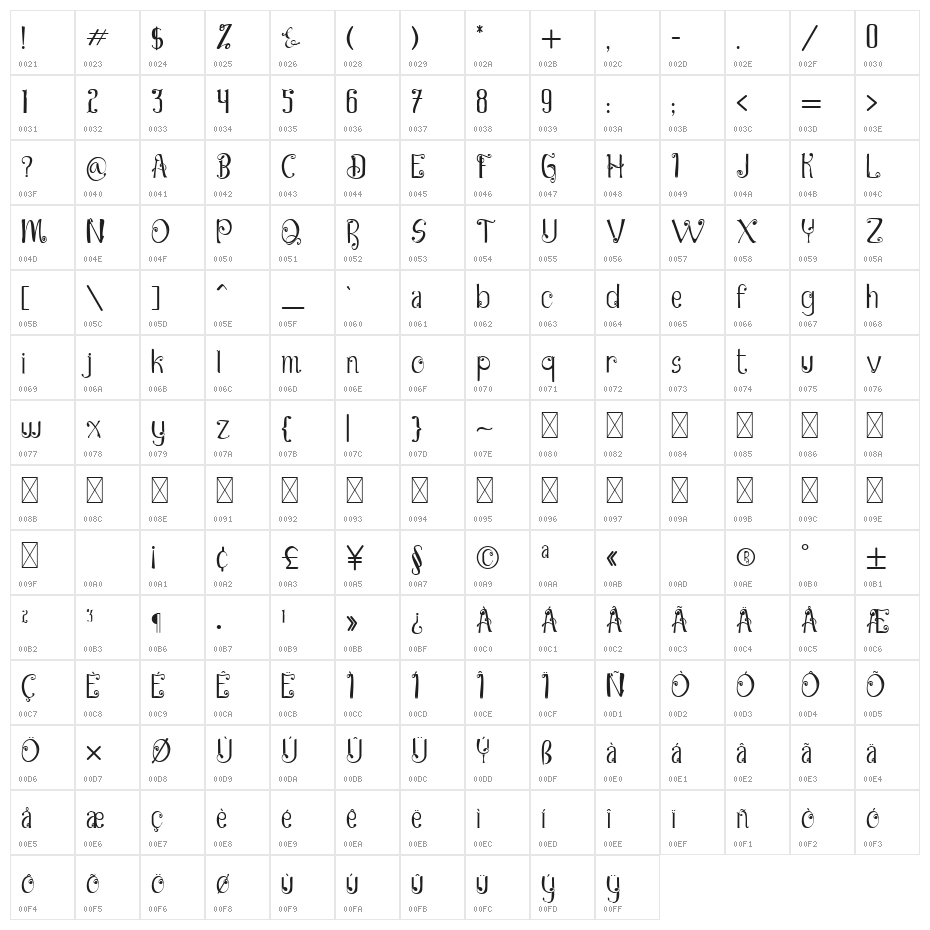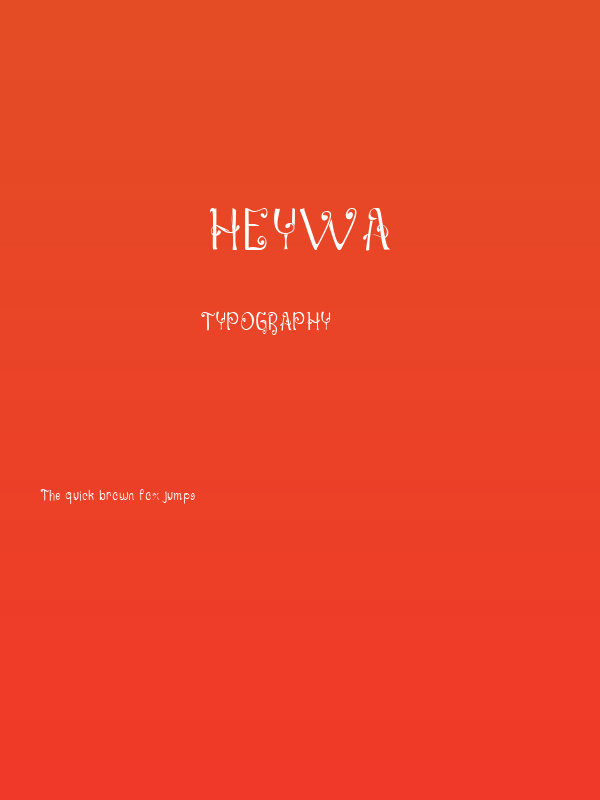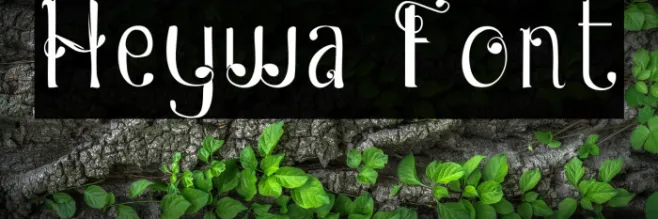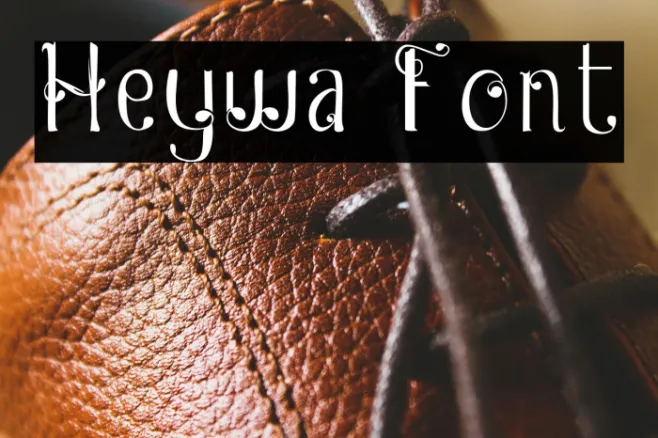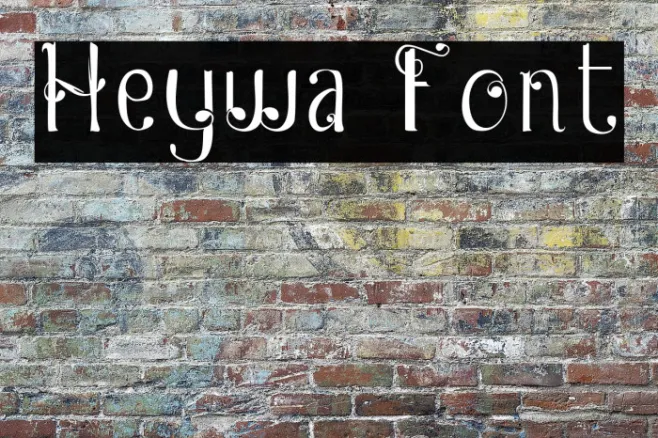
Heywa Font
Heywa Description
This font is a decorative and whimsical typeface that features elegant swirls and curls on many of its characters, giving it a playful and artistic flair. The uppercase letters are particularly ornate, with each character having unique embellishments that add to its charm. The lowercase letters maintain a more subtle style, yet still carry the decorative theme with slight curls and extended strokes. The numerals are bold and distinct, incorporating similar decorative elements that ensure consistency throughout the font. Special characters are also designed with the same attention to detail, making this font ideal for creative projects that require a touch of elegance and uniqueness.
| Use Case | Headlines, Logos, Artistic projects |
| Proposed Projects | Ideal for invitations, greeting cards, artistic posters, and branding that requires a unique and elegant touch. |